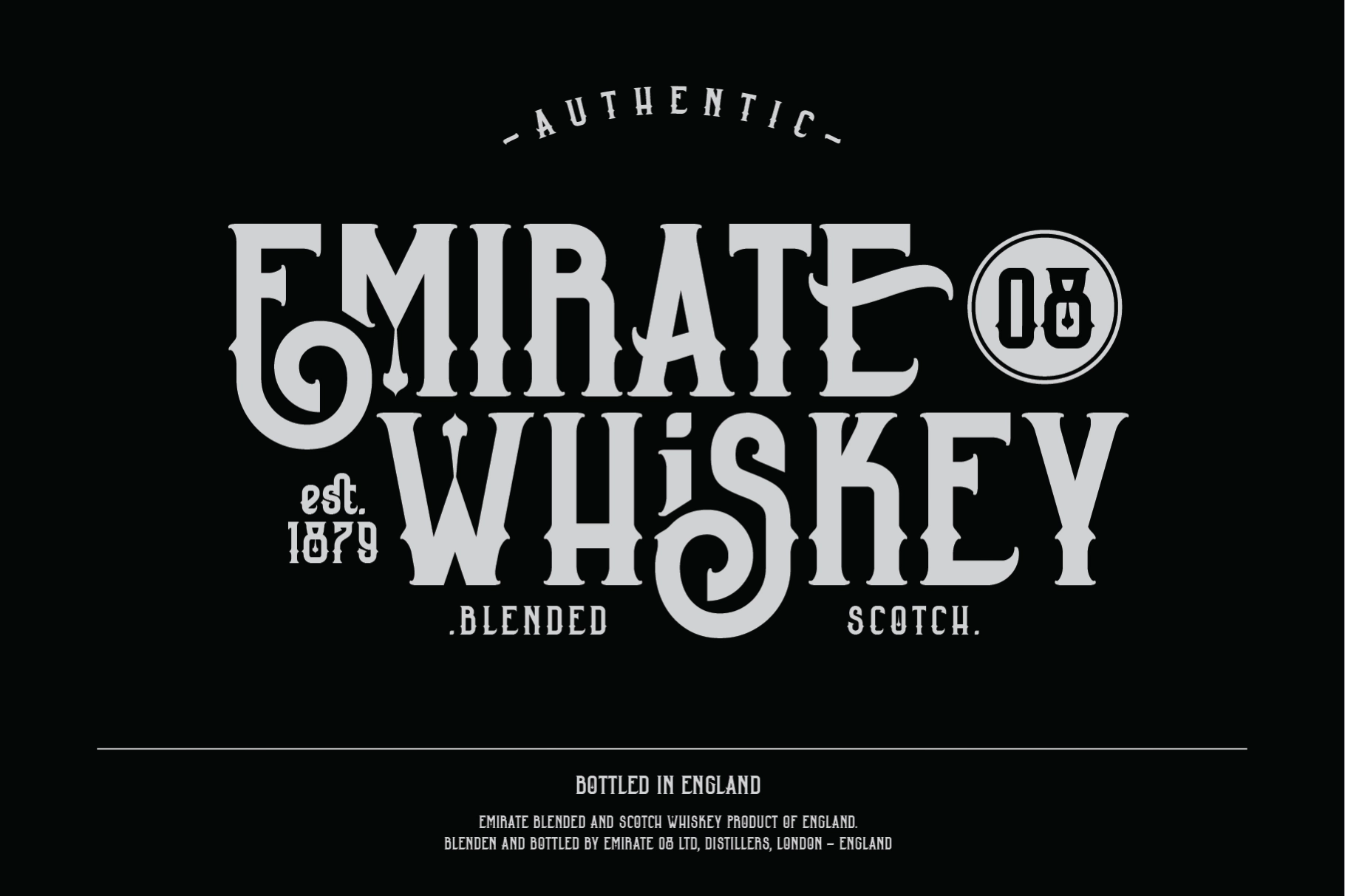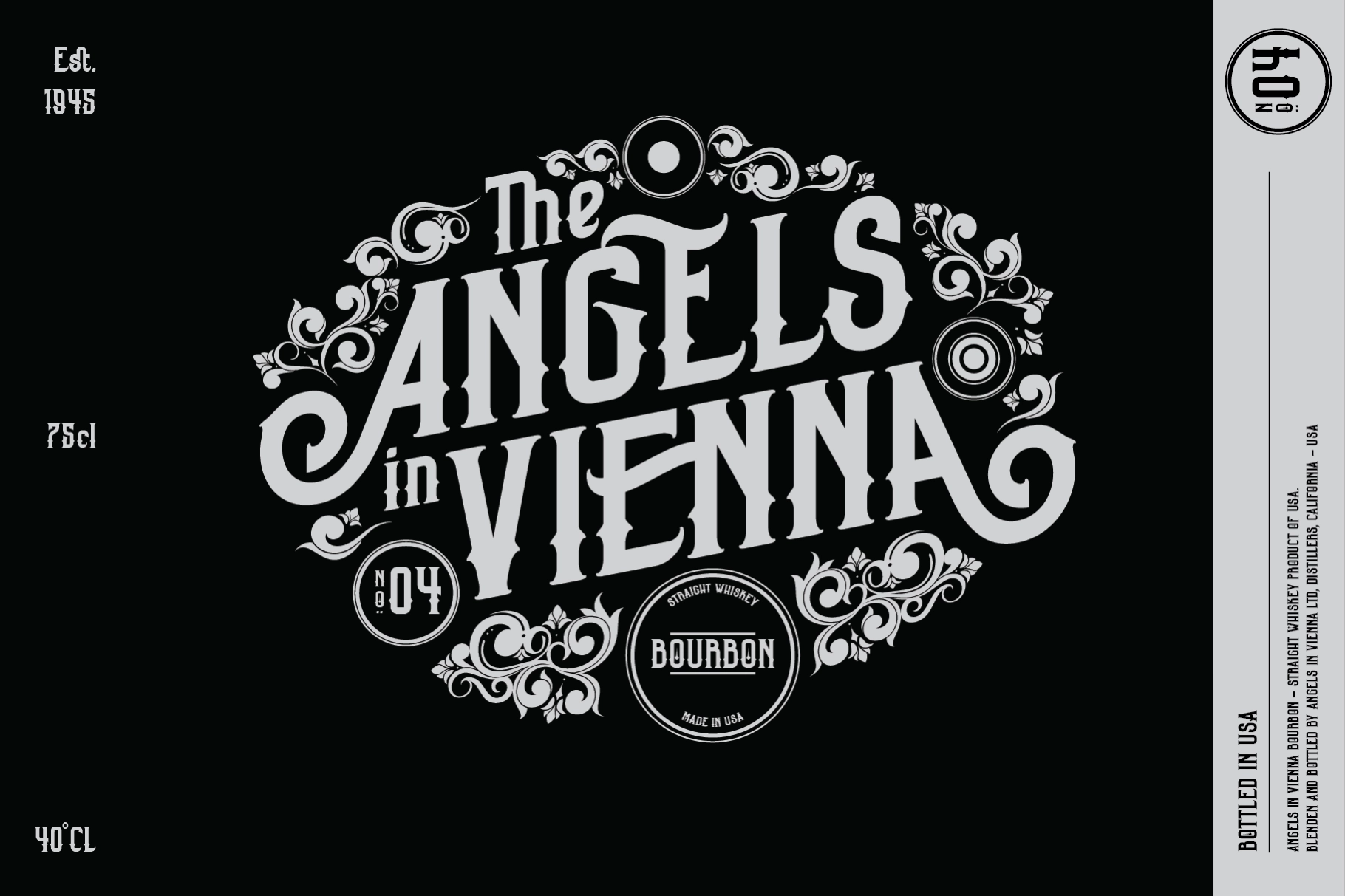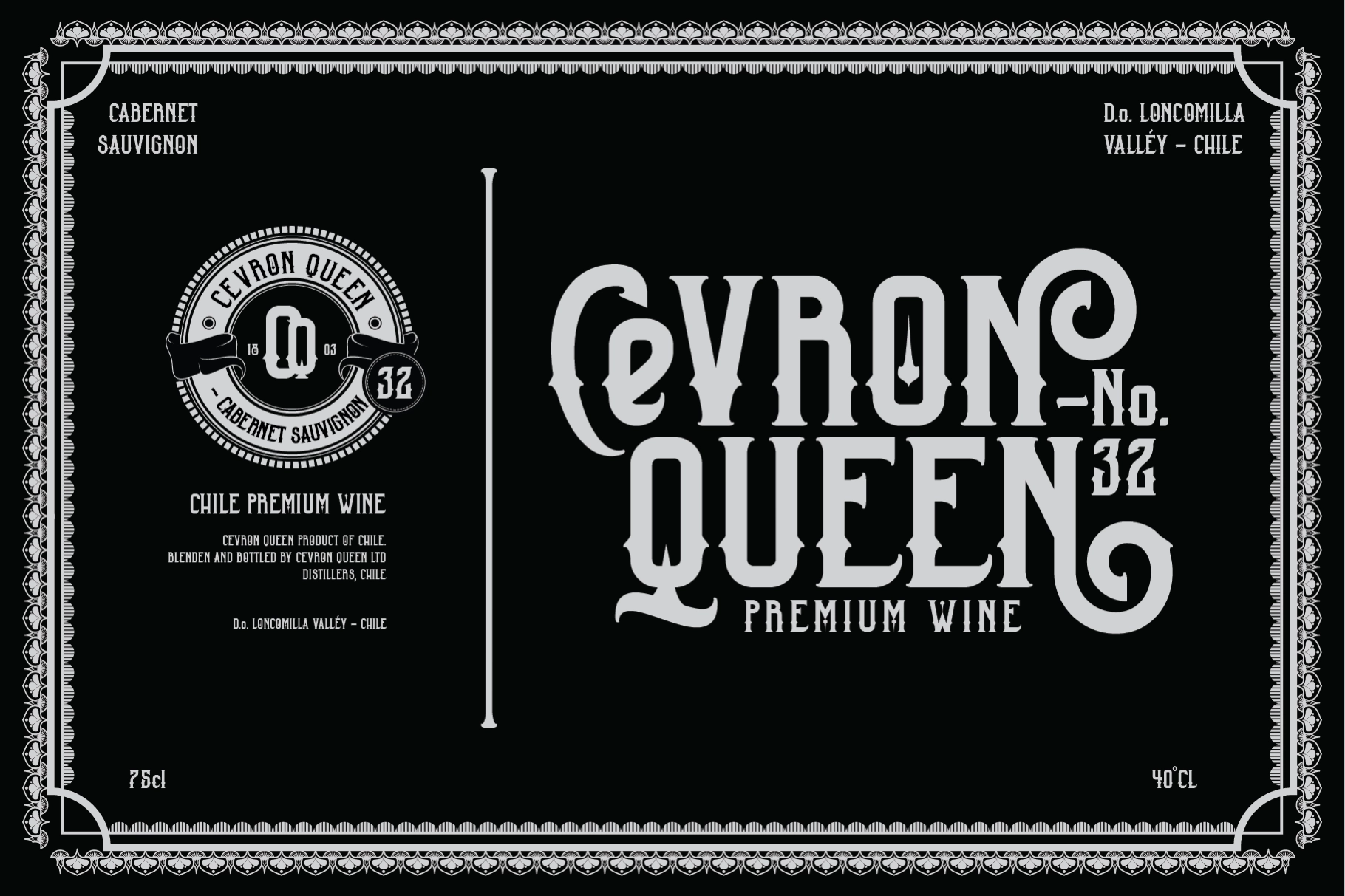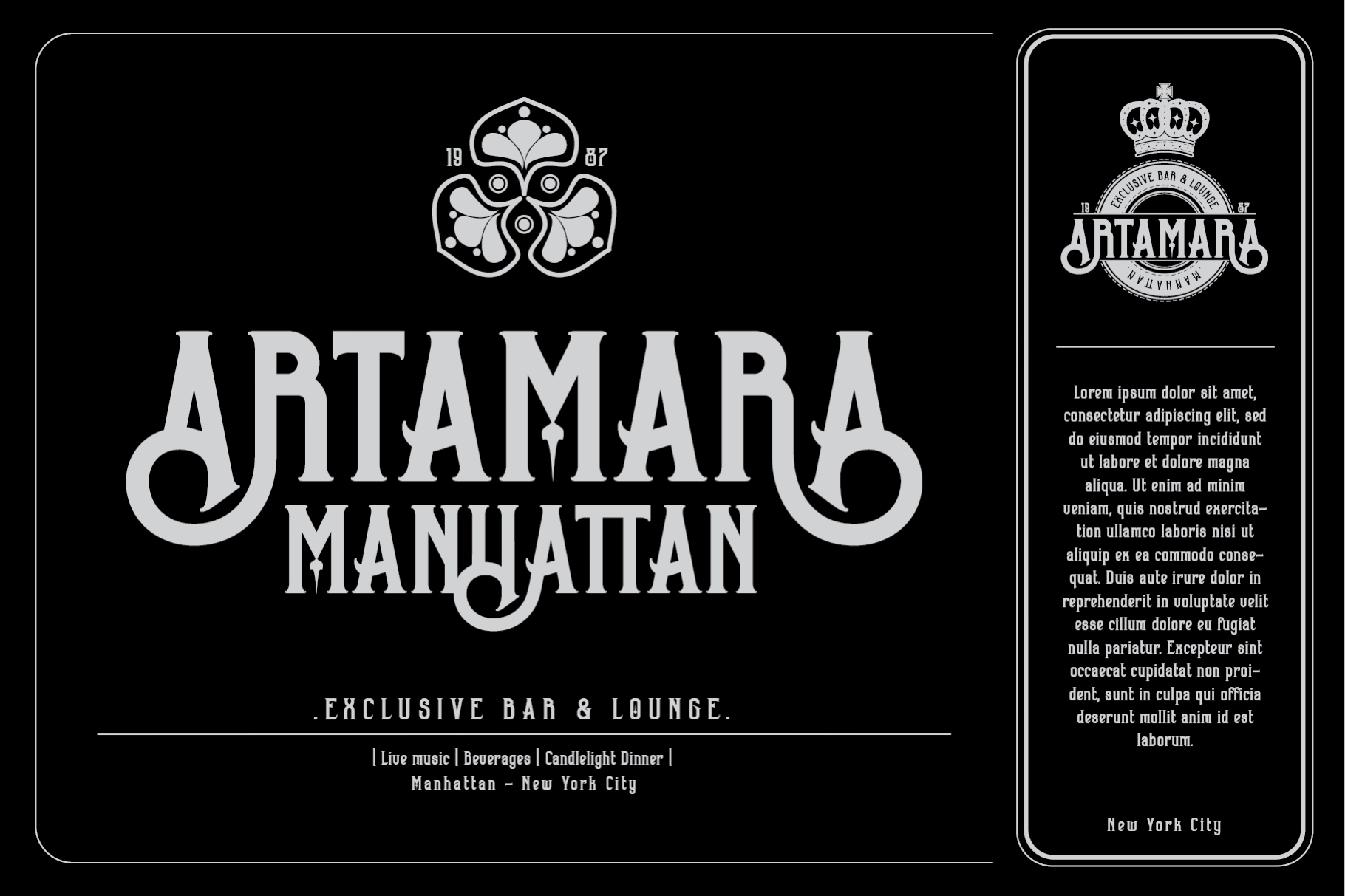
Barstagle — Vintage Display Font
Barstagle is a vintage display font that works in the territory between Victorian serif and blackletter — upright, high-contrast construction with narrow hairline strokes pulled against wide main stems, and decorative curls on the capitals that read as heraldic rather than ornamental. The weight and rhythm make it particularly well-suited to all-caps settings at label scale, where the tight ink traps and pointed terminals hold their detail.
The font ships in two styles: Regular carries the full gothic character with curled terminals and decorative spurs; Unthorns strips those back for a cleaner, more restrained version of the same skeleton. Both work well for whiskey and wine label typography, spirits branding, badge logo compositions, vintage poster headlines, barbershop and tattoo studio identity, and editorial display settings. Use them together for hierarchy — Unthorns as the secondary weight, Regular for the hero word.
• 2 styles: Regular & Unthorns;
• Uppercase & lowercase;
• Numerals, punctuation & symbols;
• Standard & discretionary ligatures;
• Alternates for select characters.